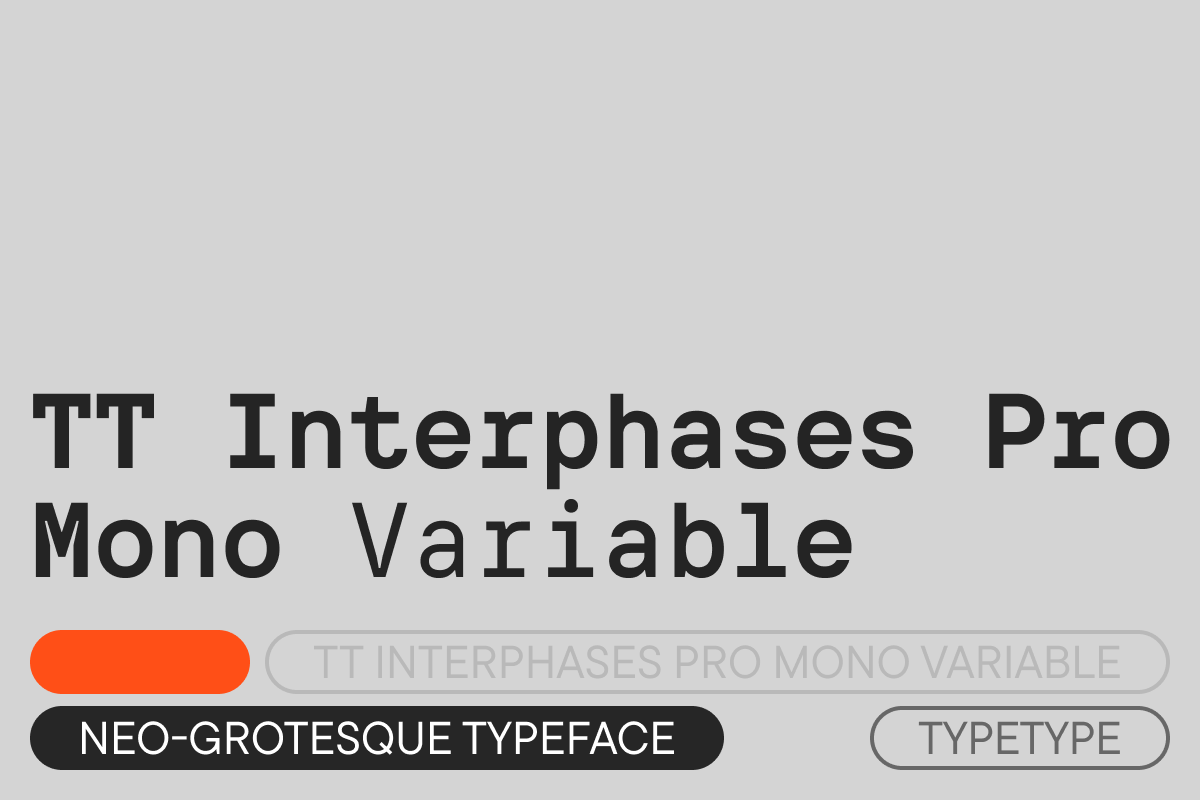
TT Interphases Pro Mono VF
TT Interphases Pro is a Neo-Grotesque typeface specifically designed for working with interfaces. Text set in this font appears uniform thanks to its static proportions. A larger height of the lowercase characters improves screen legibility, while neutral glyph characteristics and squared forms of the round characters allow it to remain readable even in smaller point sizes. Closed apertures give the font a modern and distinctive look.